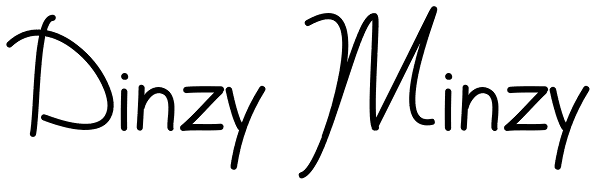
Dinzy Minzy
If you are looking for an expressive, witty and whimsical typeface, Dinzy Minzy will beckon to a change of pace for any designer looking to create space, time and lighthearted imagery. This typeface draws you into the message of the mind, lending...